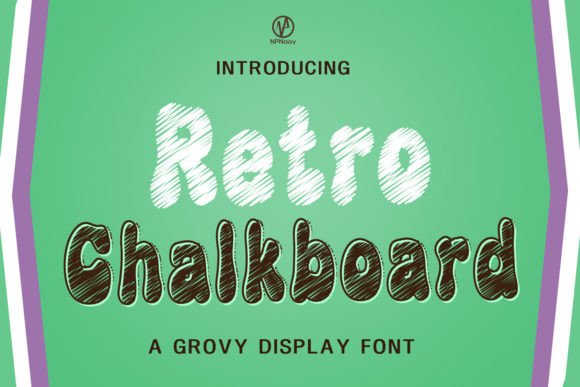
Leap into a world of nostalgic charm with Retro Chalkboard Font, a display font family that ignites a spark of creativity with its captivating vintage aesthetics. Designed by the talented NPNaay, this font isn't just a collection of letters and symbols, but a gateway to a bygone era where chalkboards scribbled with wisdom and wit adorned classrooms and storefronts.
With Retro Chalkboard Font, you're not merely downloading a font; you're embarking on a journey through time. This font's meticulously crafted characters exude a charm that's both timeless and utterly captivating. Each letter is like a piece of art, meticulously hand-drawn to evoke the essence of a simpler time.
Whether you're a seasoned designer seeking to add a touch of nostalgia to your projects or a casual crafter yearning for a font that sparks your imagination, Retro Chalkboard Font is your perfect companion. Its versatility transcends boundaries, making it a versatile choice for a wide range of applications.
Picture this: a vintage-inspired poster for a local coffee shop, its words rendered in Retro Chalkboard Font, inviting passersby to step into a world of rich aromas and handcrafted blends. Or perhaps a heartfelt greeting card, its message penned in this elegant font, conveying your sentiments with a touch of old-world charm.
The possibilities are endless with Retro Chalkboard Font. Unleash your creativity and let your designs speak volumes with this font's timeless appeal. Whether it's a digital masterpiece, a handmade craft, a captivating presentation, or a heartfelt greeting, Retro Chalkboard Font will transform your words into works of art.